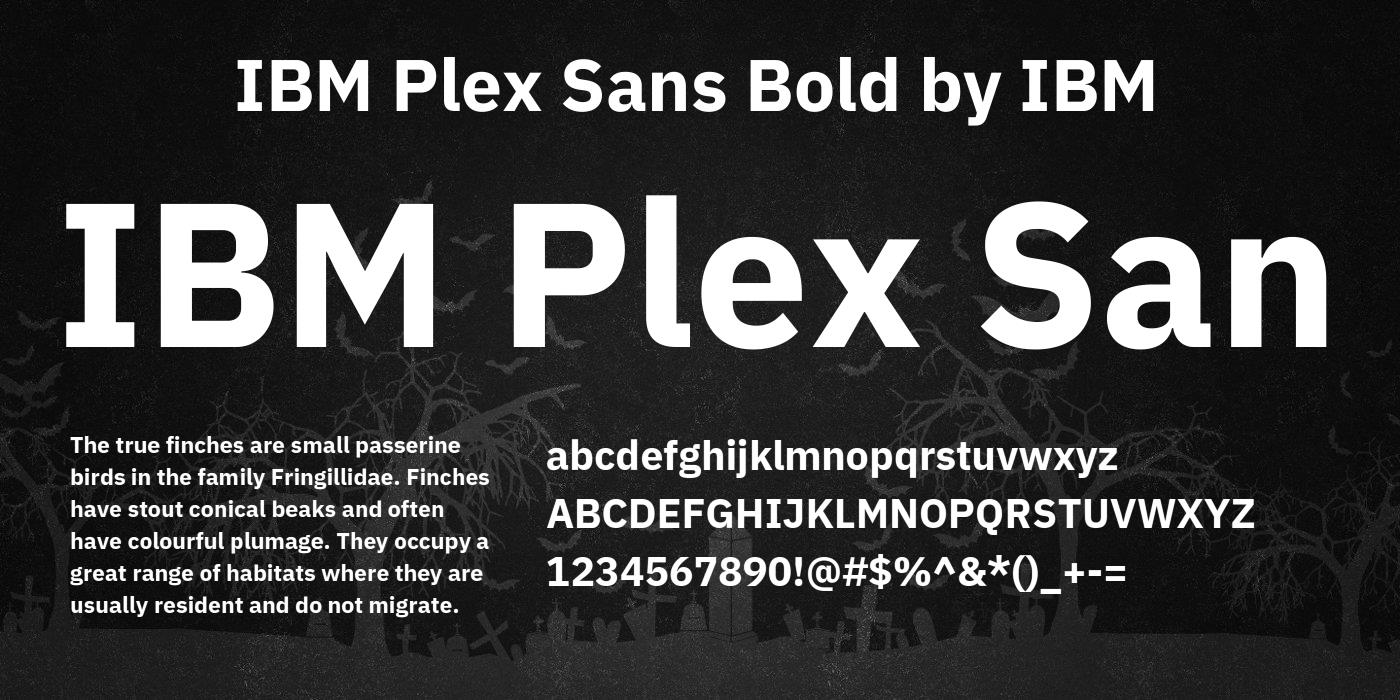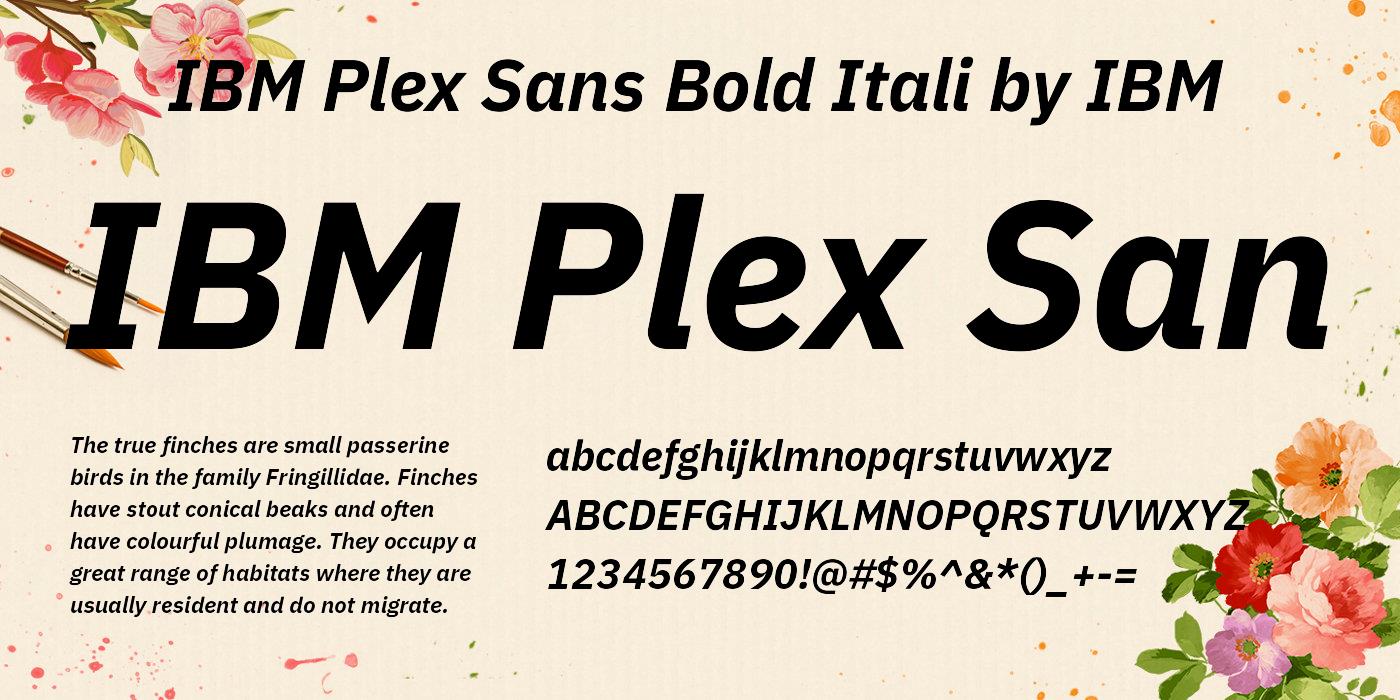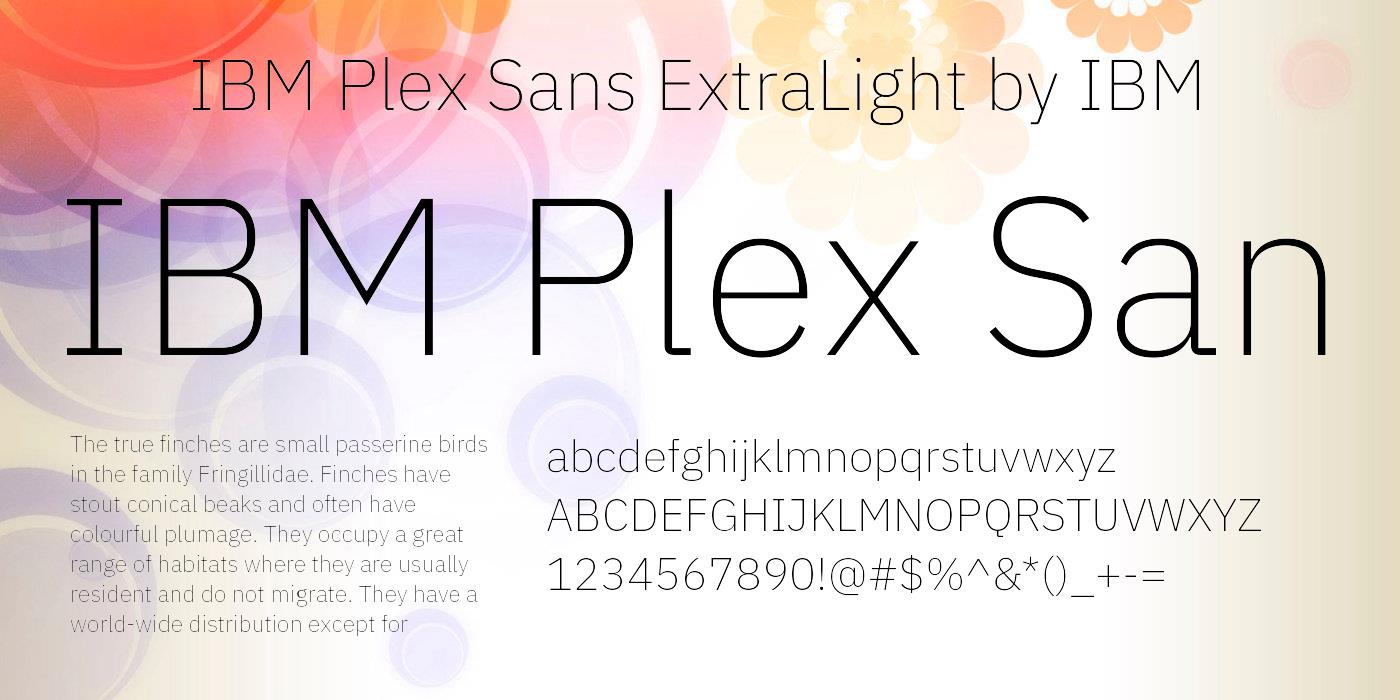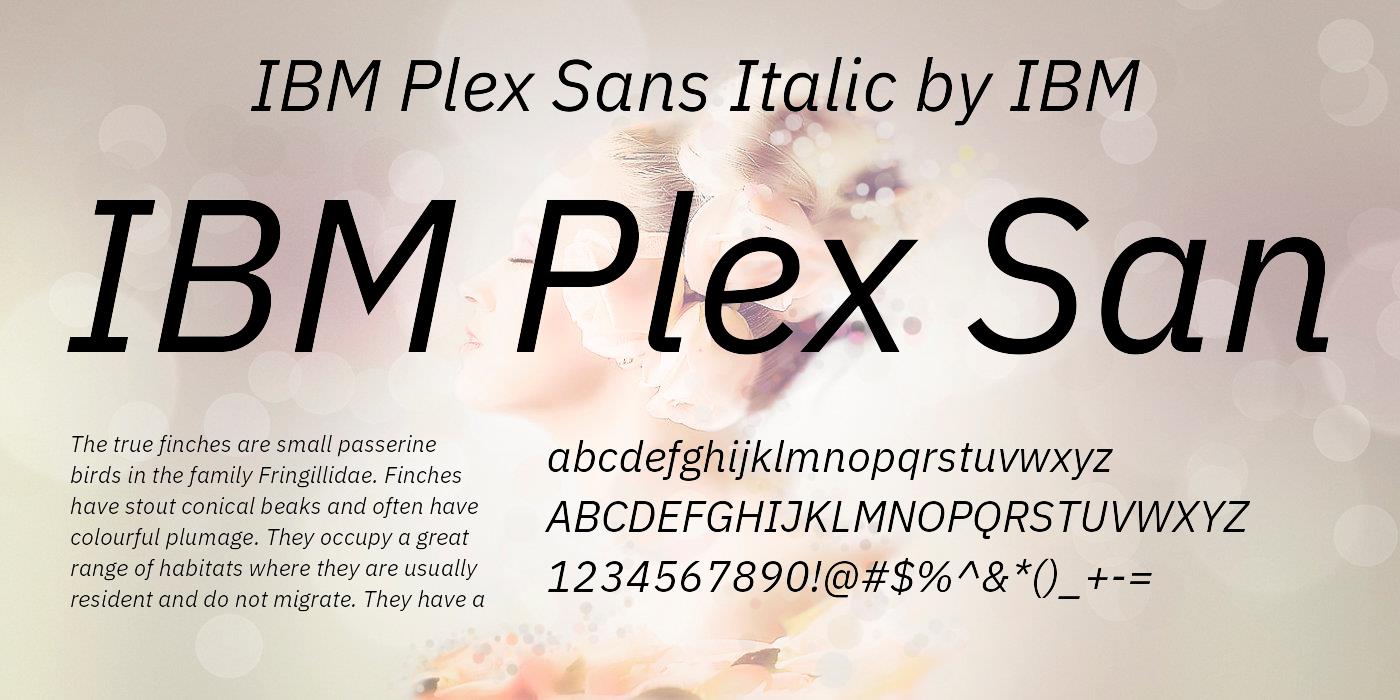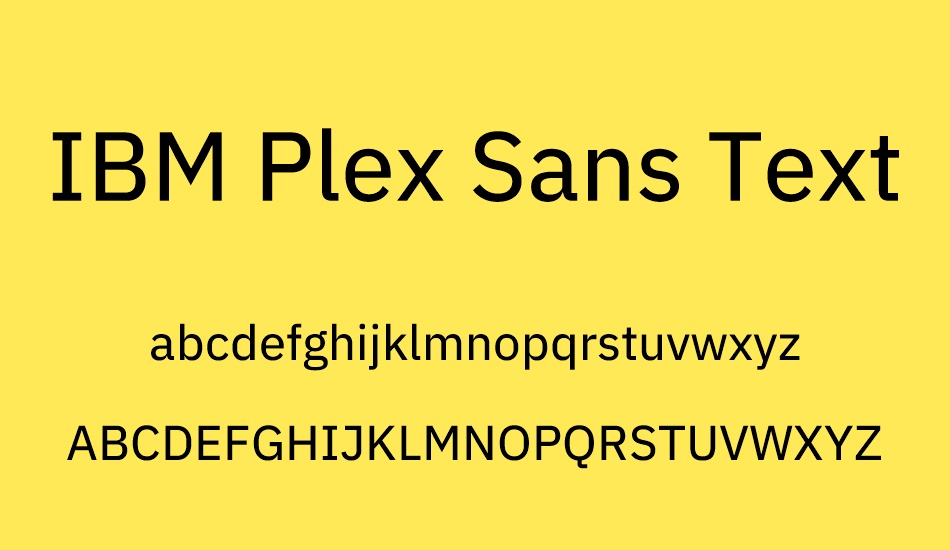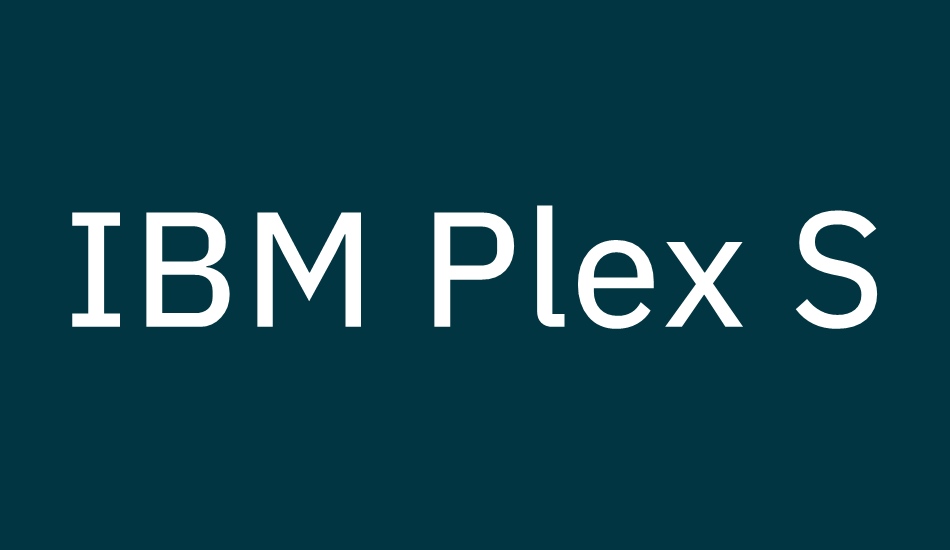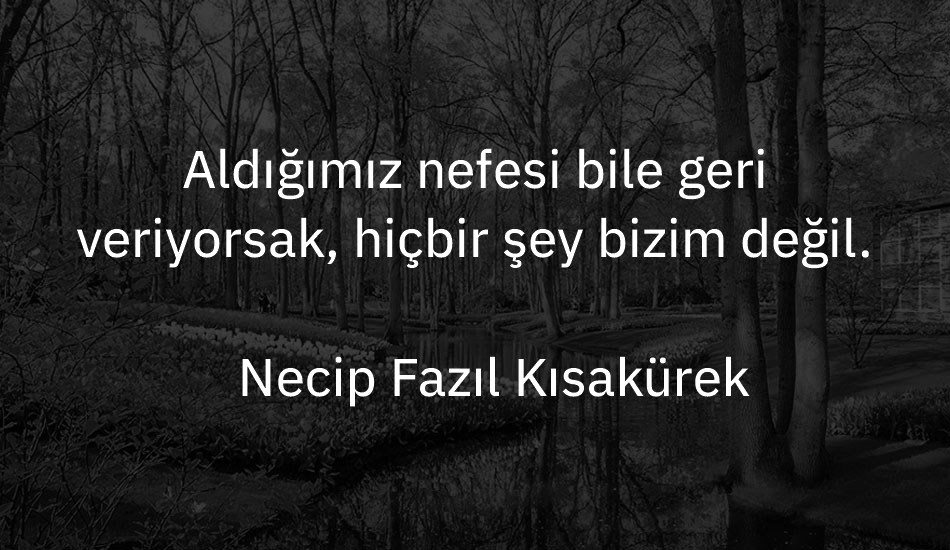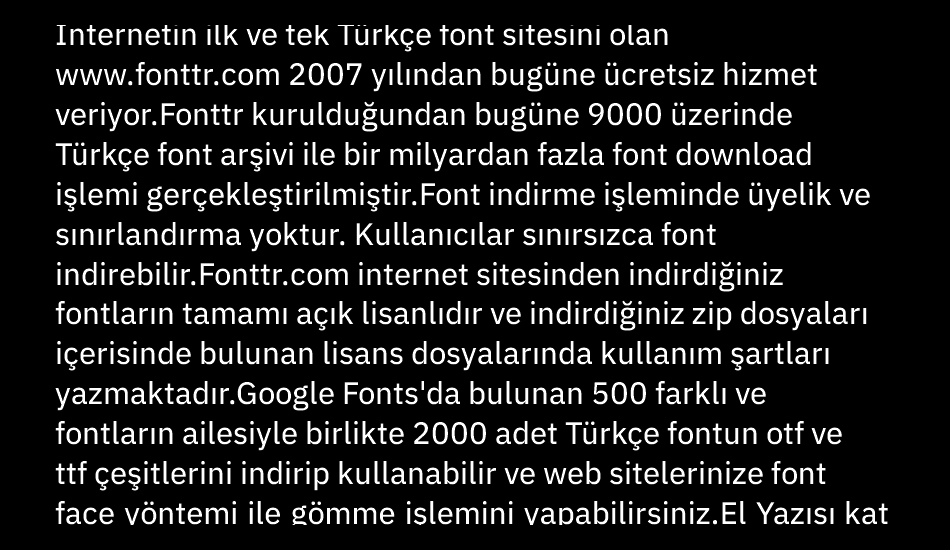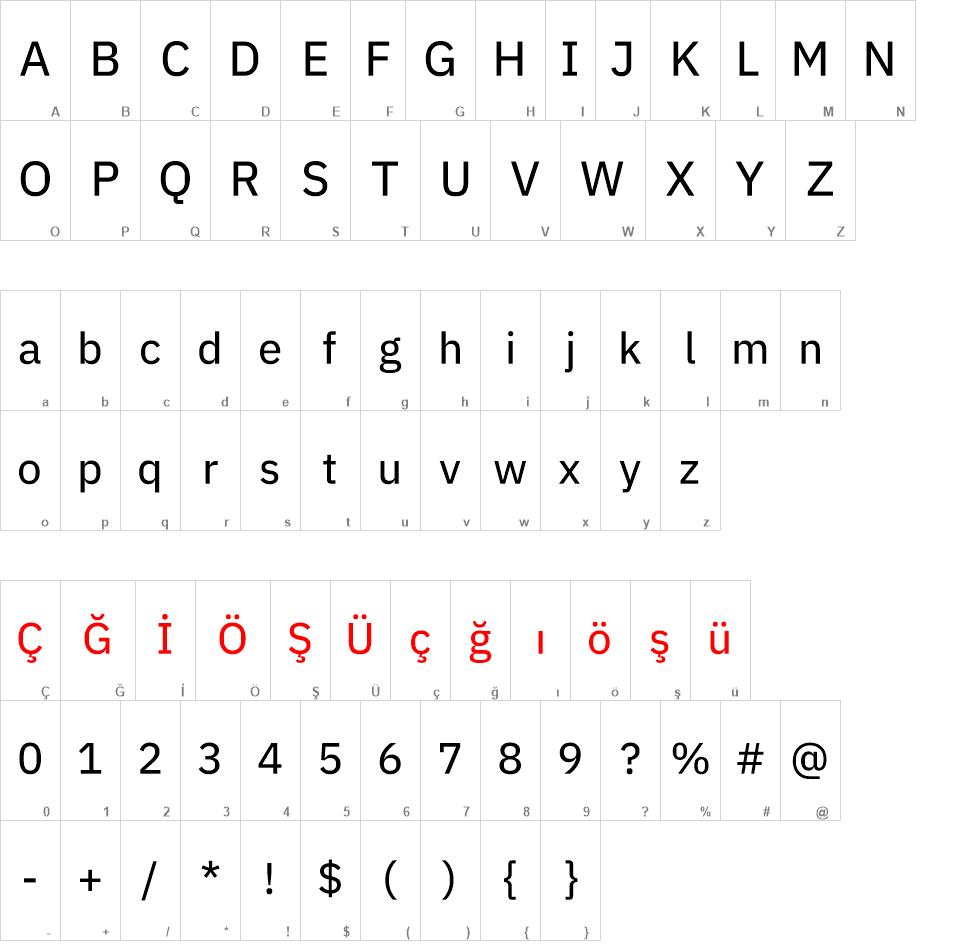
IBM Plex™ is the new corporate typeface for IBM worldwide and an open source project developed by the IBM Brand & Experience team (BX&D). Plex is an international typeface family designed to capture IBM’s brand spirit and history, and to illustrate the unique relationship between mankind and machine—a principal theme for IBM since the turn of the century. The result is a neutral, yet friendly Grotesque style typeface that balances design with the engineered details that make Plex™ distinctly IBM. The family includes a Sans, Sans Condensed, Mono, and Serif and has excellent legibility in print, web and mobile interfaces. Plex’s three designs work well independently, and even better together. Use the Sans as a contemporary compadre, the Serif for editorial storytelling, or the Mono to show code snippets. The unexpectedly expressive nature of the italics give you even more options for your designs.
IBM Plex Sans Text font
# IBM Plex Typeface